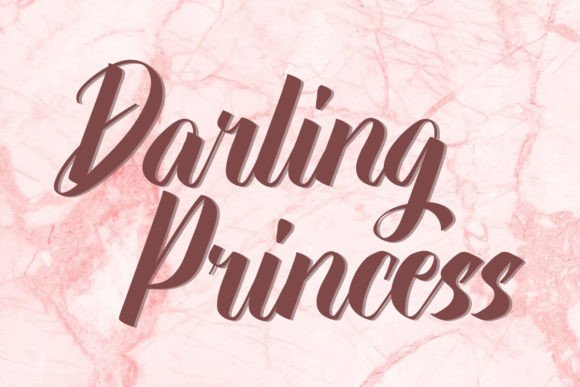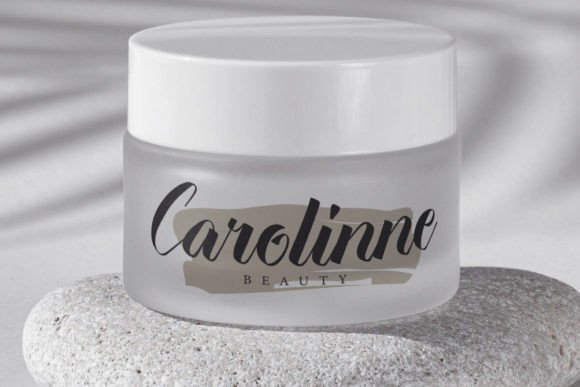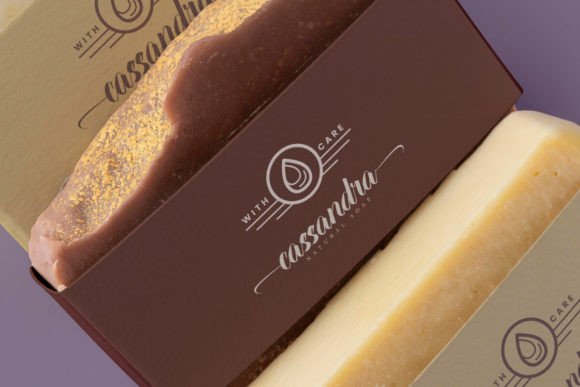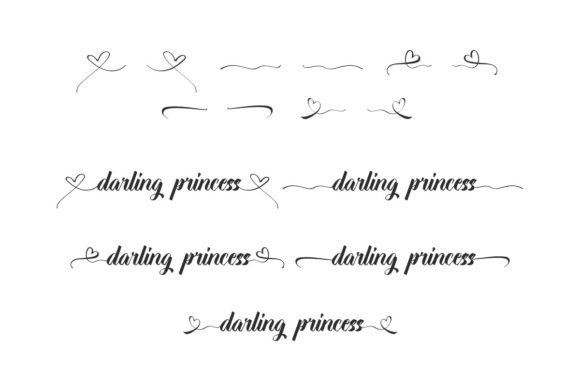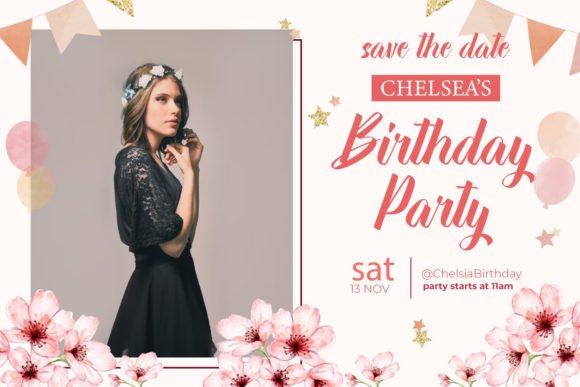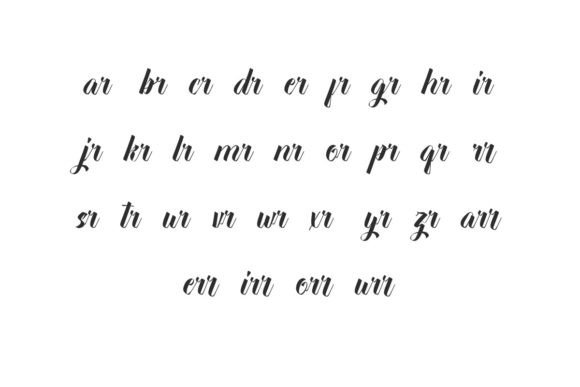
Introducing Darling Princess Font: Elevate Your Designs with Modern Calligraphy Elegance
Are you a designer or crafter looking for a font that exudes elegance and sophistication? Look no further than the Darling Princess Font, a stunning script font in a modern calligraphy style. This beautiful font is designed to add a touch of luxury to your designs, making it perfect for a wide range of projects, from branding and marketing materials to craft projects and digital creations.
What Makes Darling Princess Font So Special?
Darling Princess Font is a lovely script font that boasts a clean and easy-to-read design. Its modern calligraphy style gives it a fresh and contemporary look that’s sure to impress. The font’s clean lines and flowing curves make it perfect for designs where you want to convey a sense of elegance and refinement.
One of the standout features of Darling Princess Font is its versatility. This font can be used for a wide range of projects, including:
- Brand logos and branding materials
- Brochures and flyers
- Business cards and stationery
- Covers and packaging
- Invitations and event materials
- Labels and stickers
- Product packaging and labels
- Quotes and social media graphics
- Title pages and headings
- Watermarks and digital backgrounds
- Websites and digital platforms
Why Choose Darling Princess Font?
There are many reasons why Darling Princess Font is a top choice for designers and crafters. Here are just a few:
- Elegant and sophisticated: Darling Princess Font has a luxurious feel that’s perfect for high-end designs and brands.
- Clean and easy to read: The font’s clean design makes it easy to read, even at small sizes.
- Versatile: Darling Princess Font can be used for a wide range of projects and applications.
- Modern calligraphy style: The font’s modern calligraphy style gives it a fresh and contemporary look.
Tips for Using Darling Princess Font
Here are a few tips for getting the most out of Darling Princess Font:
- Use it as a headline font: Darling Princess Font is perfect for headlines and titles, where its elegant and sophisticated style can really shine.
- Pair it with a sans-serif font: For body text, consider pairing Darling Princess Font with a clean sans-serif font to create a nice contrast.
- Experiment with colors: Darling Princess Font looks great in a range of colors, from metallic and pastel shades to bold and bright hues.
- Use it for digital and print projects: Darling Princess Font is optimized for both digital and print use, making it a great choice for a wide range of projects.
If you’re looking for a font that exudes elegance and sophistication, look no further than Darling Princess Font. This beautiful script font in a modern calligraphy style is perfect for designers and crafters who want to add a touch of luxury to their designs. With its clean and easy-to-read design, versatility, and range of uses, Darling Princess Font is a top choice for anyone looking to elevate their designs.